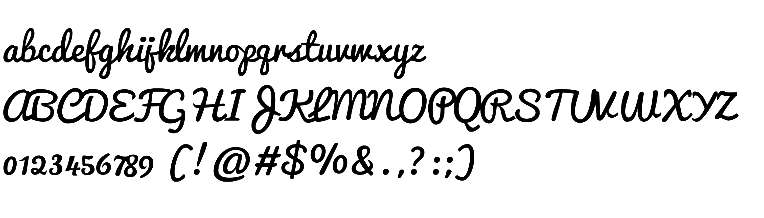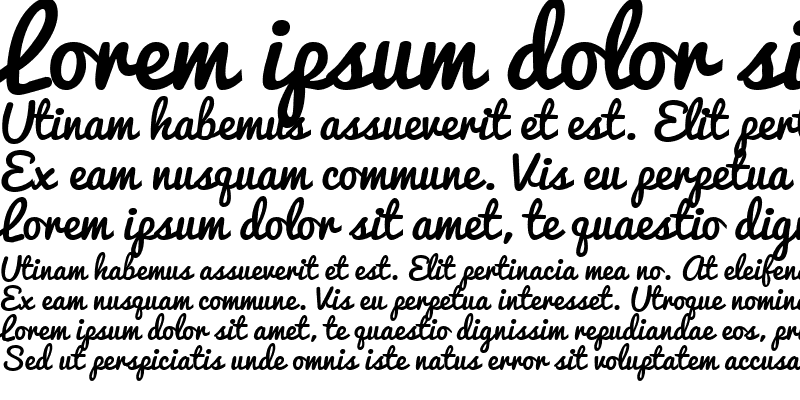
Fonts Similar To Pacifico. Download pacifico font · free for commercial use · aloha! So, you can use this typeface in replacement of clara font.
Adobe fonts is the easiest way to bring great type into your workflow, wherever you are. Pacifico is an original and fun brush script handwriting font by vernon adams which was inspired by the 1950s american surf culture. The confusion may stem from the pacifico being offered on free font sites such as fontsquirrel.com having different glyphs than those seen on fonts.google.com link to comment
Pacifico is surely an authentic and enjoyable brush script handwriting font by vernon adams which was impressed through the fifties american surf society in 2011. It absolutely was expanded to cyrillic by botjo nikoltchev and ani petrova at lettersoup in 2017. With reserved font name pacifico.
Similar fonts to 'pacifico' #1. But in our estimation clara font is the most similar to this typeface. Explore pacifico designed by vernon adams at adobe fonts.